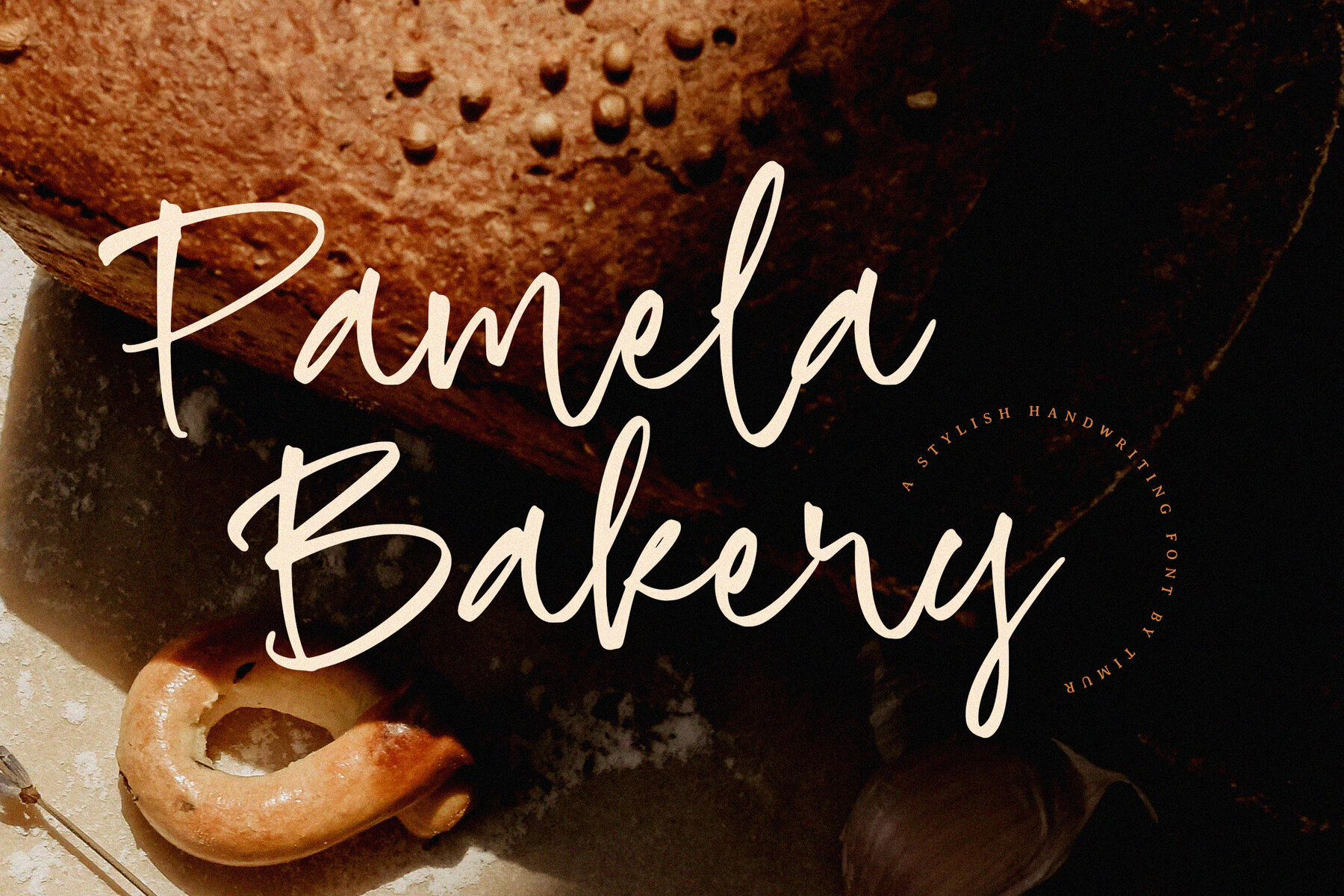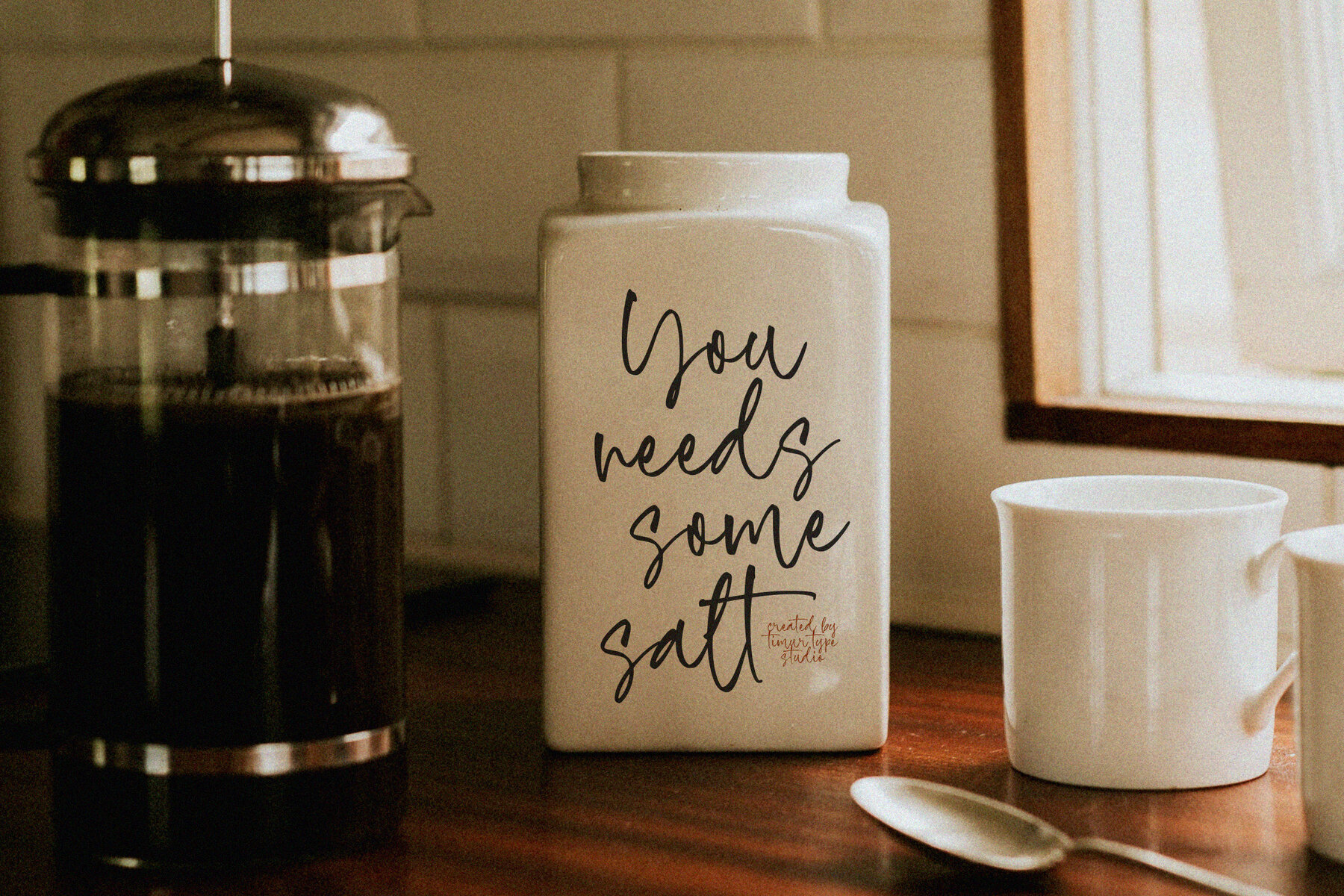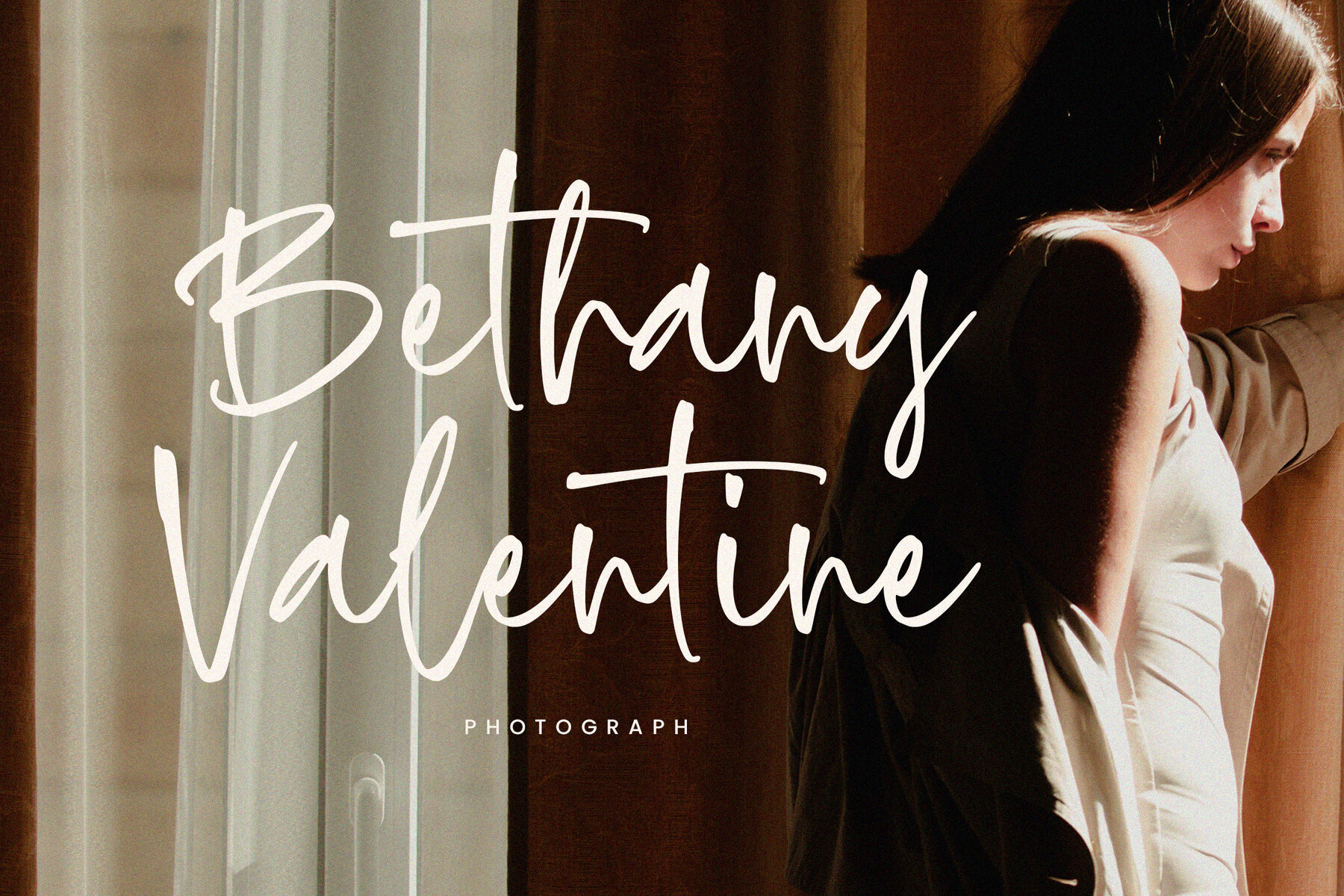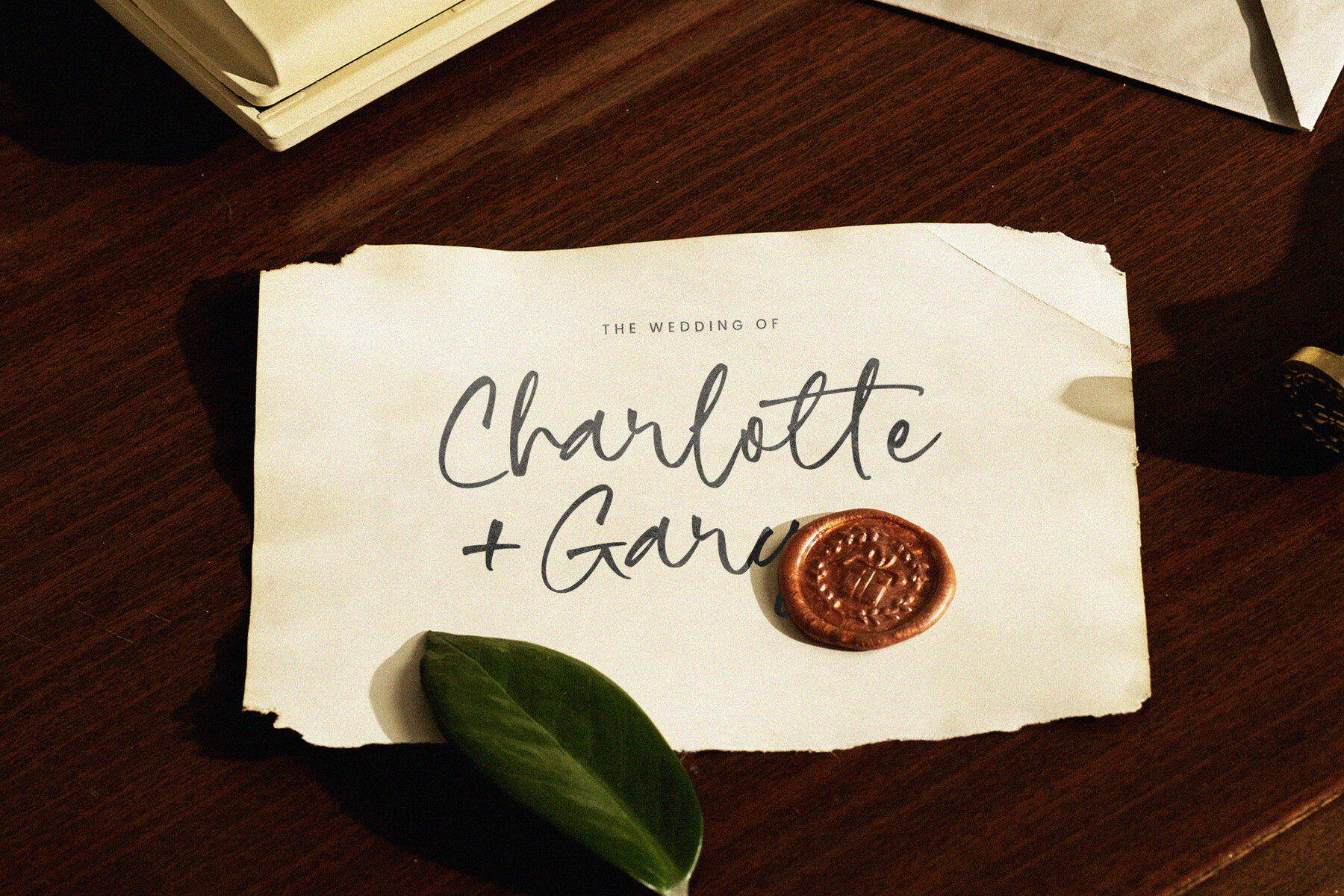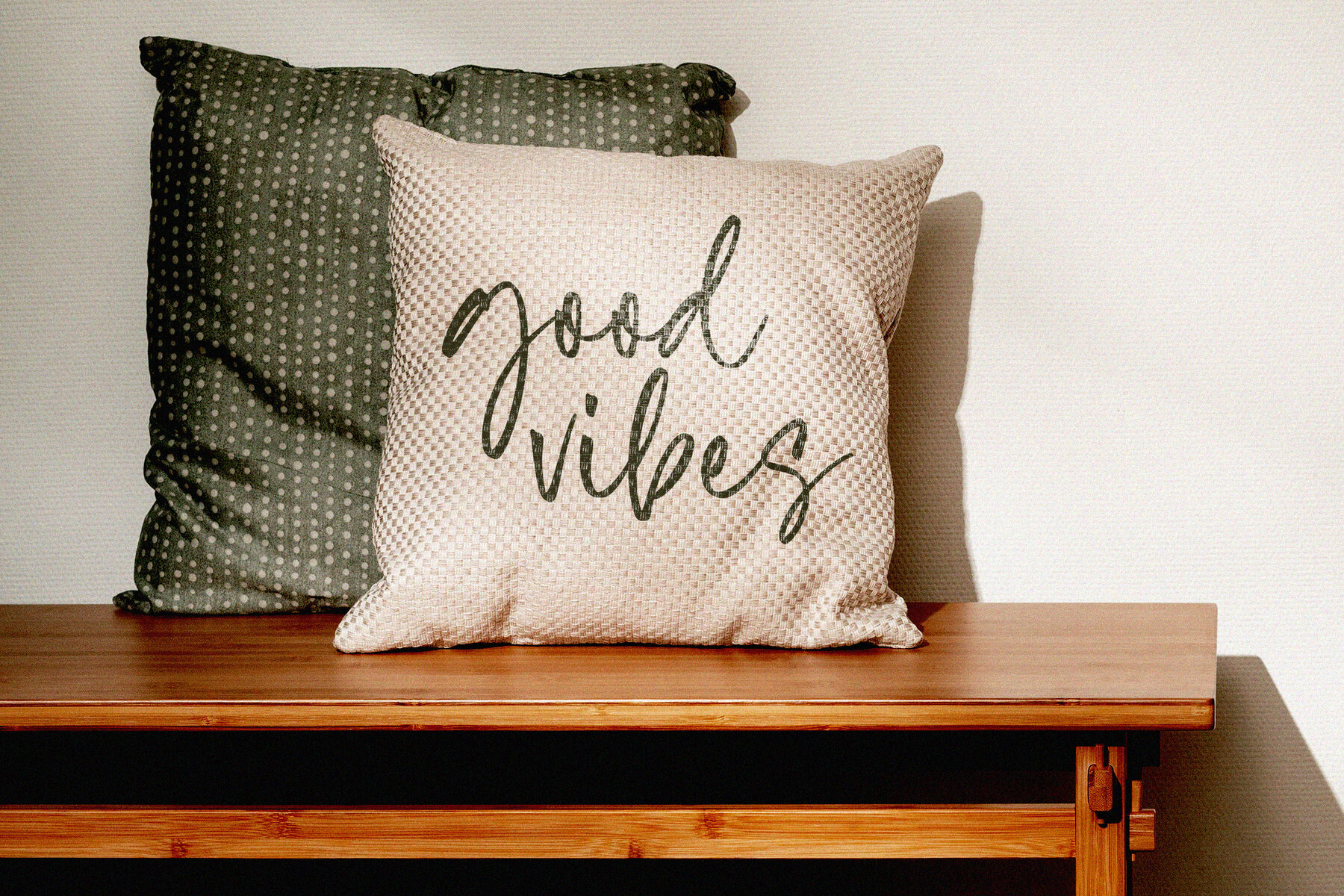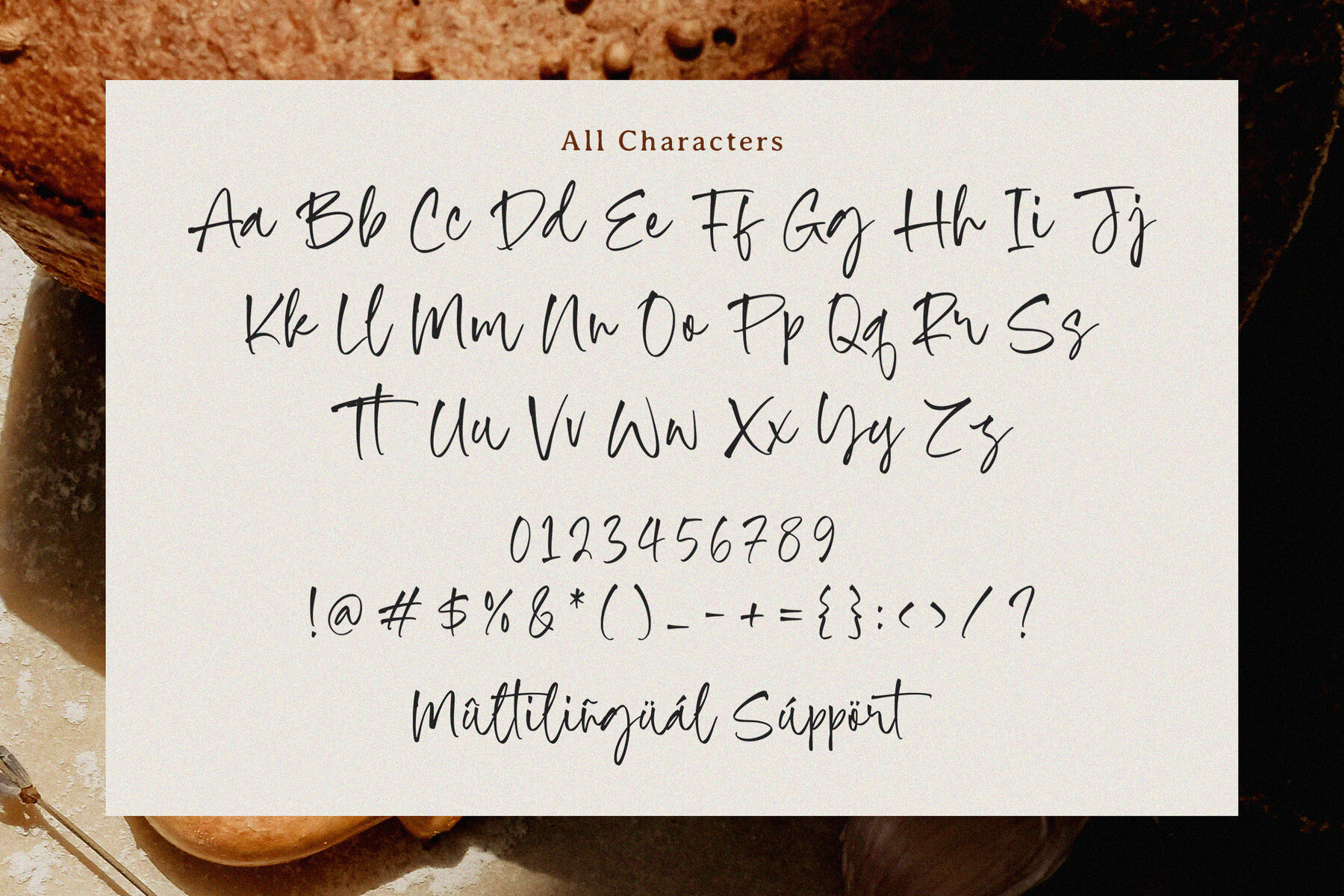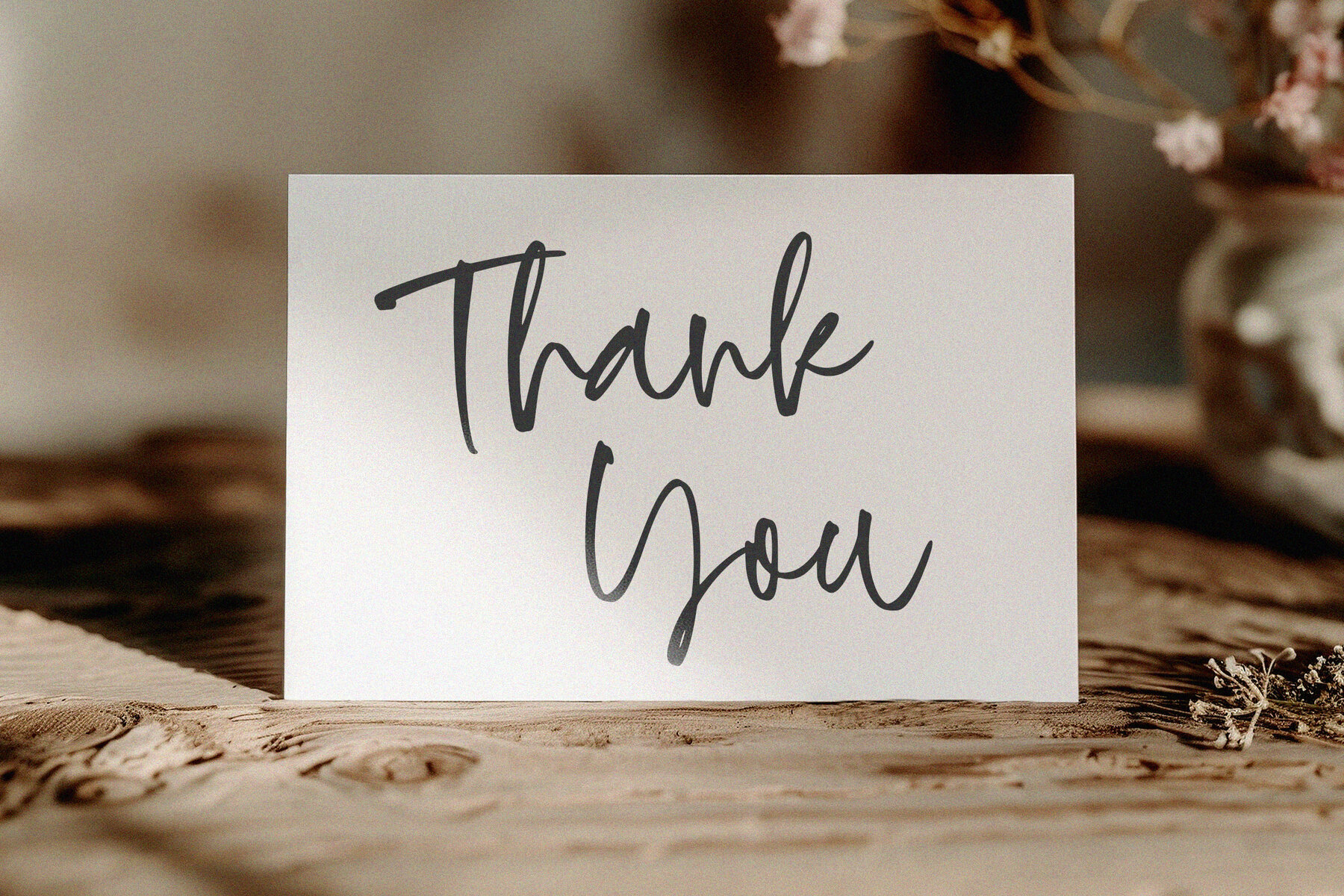
Pamela Bakery Font
Pamela Bakery
Pamela Bakery is a stylish handwriting script font that combines charm and elegance in its natural flow. It features smooth curves and playful characters, making it an excellent choice for adding a personal touch to bakery branding, wedding invitations, logos, and social media graphics. This font is designed to exude warmth and creativity, making it ideal for projects that require a friendly and inviting aesthetic.
With its distinct style, Pamela Bakery captures the essence of handmade elegance, ensuring that your design projects stand out. Its versatility allows it to enhance a variety of design elements, from formal invitations to casual social media posts. Choose Pamela Bakery to infuse a sense of personal warmth and artistic flair into your creative endeavors.